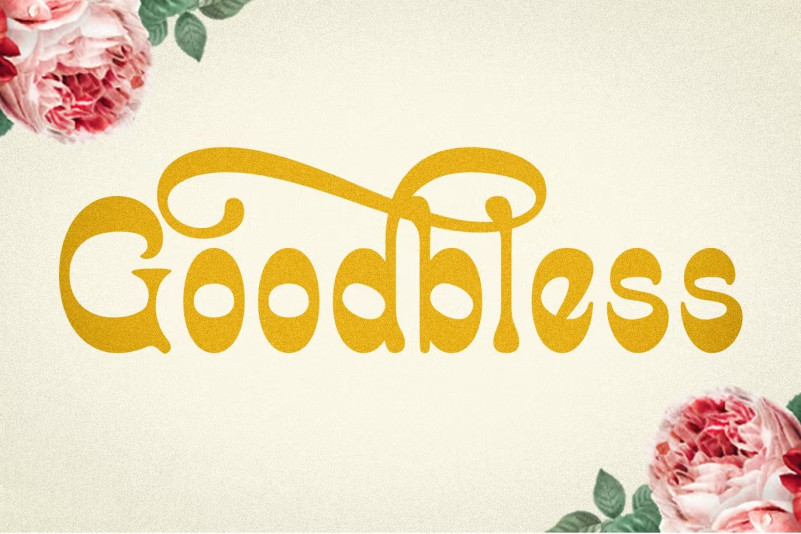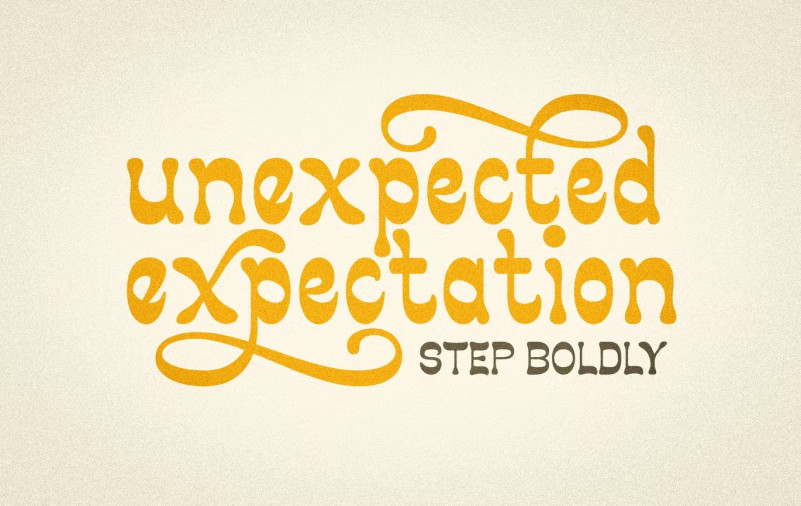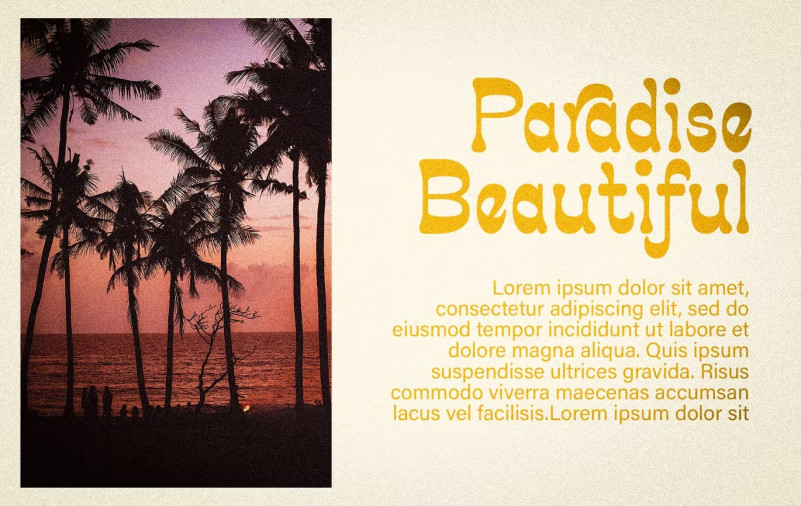
Goodbless Font
Goodbless is an inverted contrast display typeface. It’s unique and fun, ready to use for whatever project you have in mind. Suitable for posters and your other work